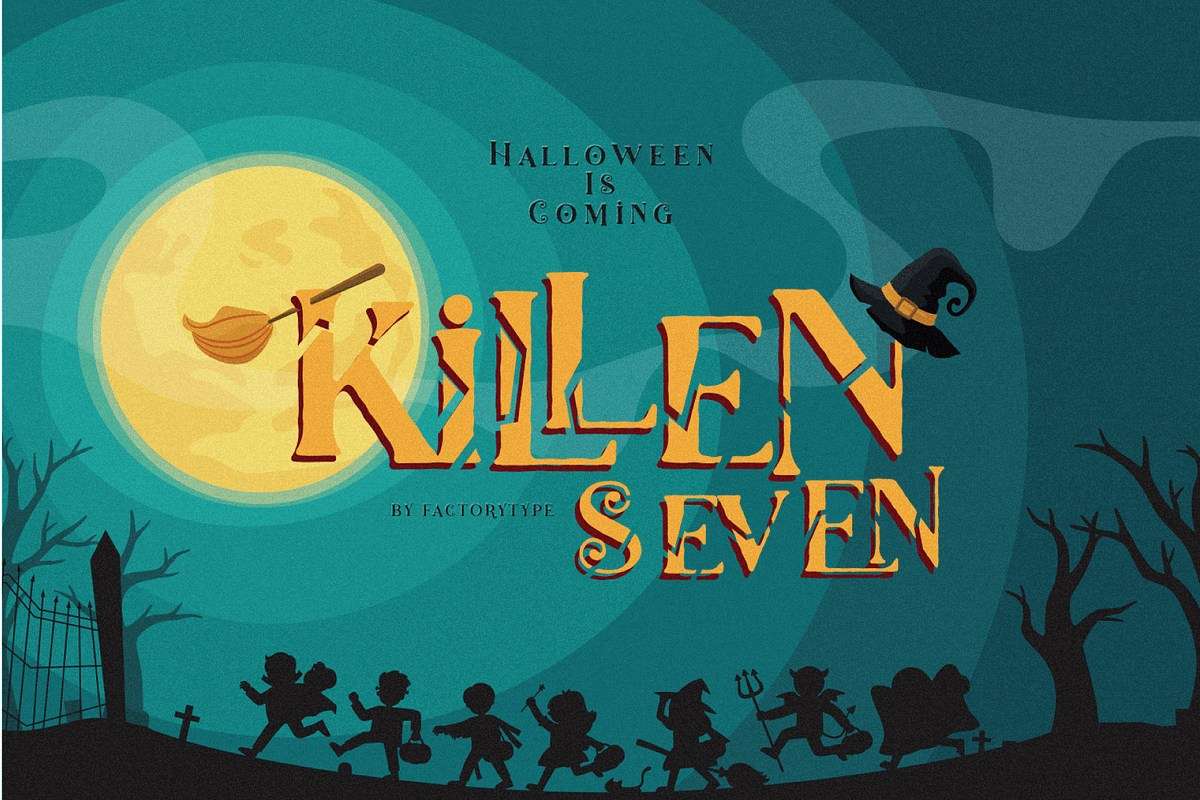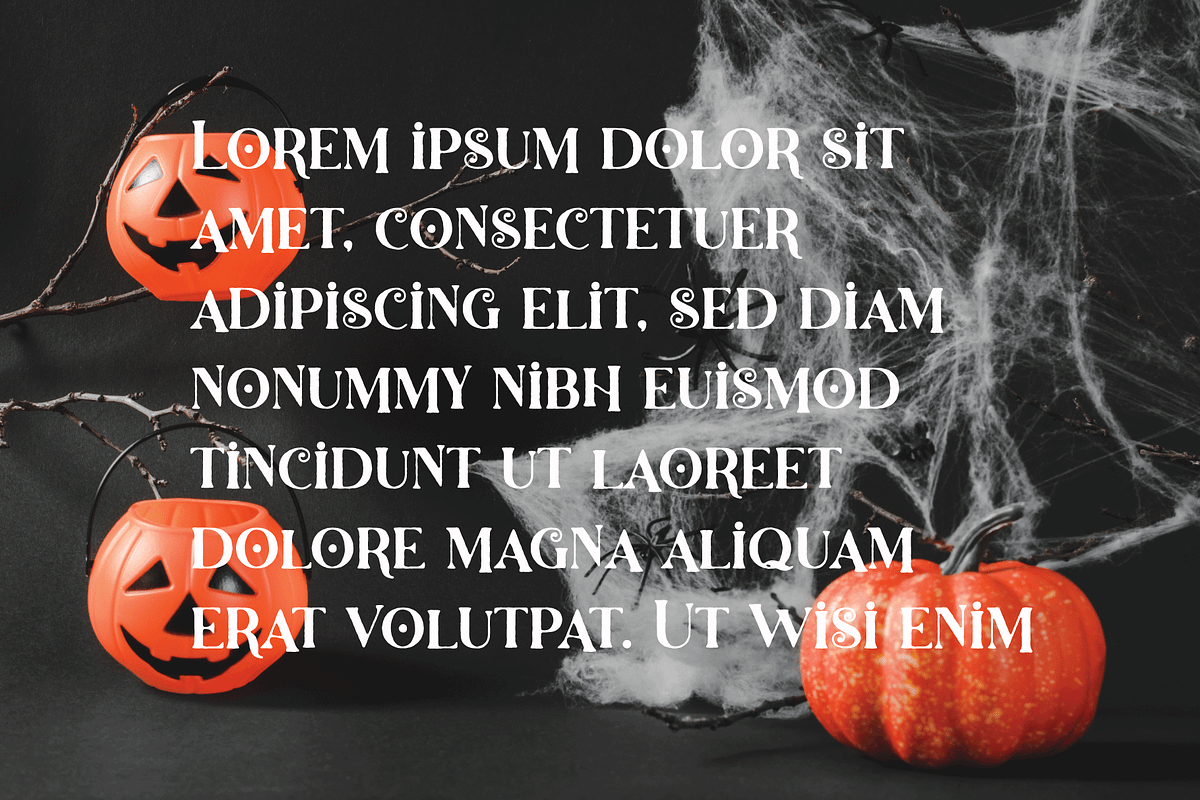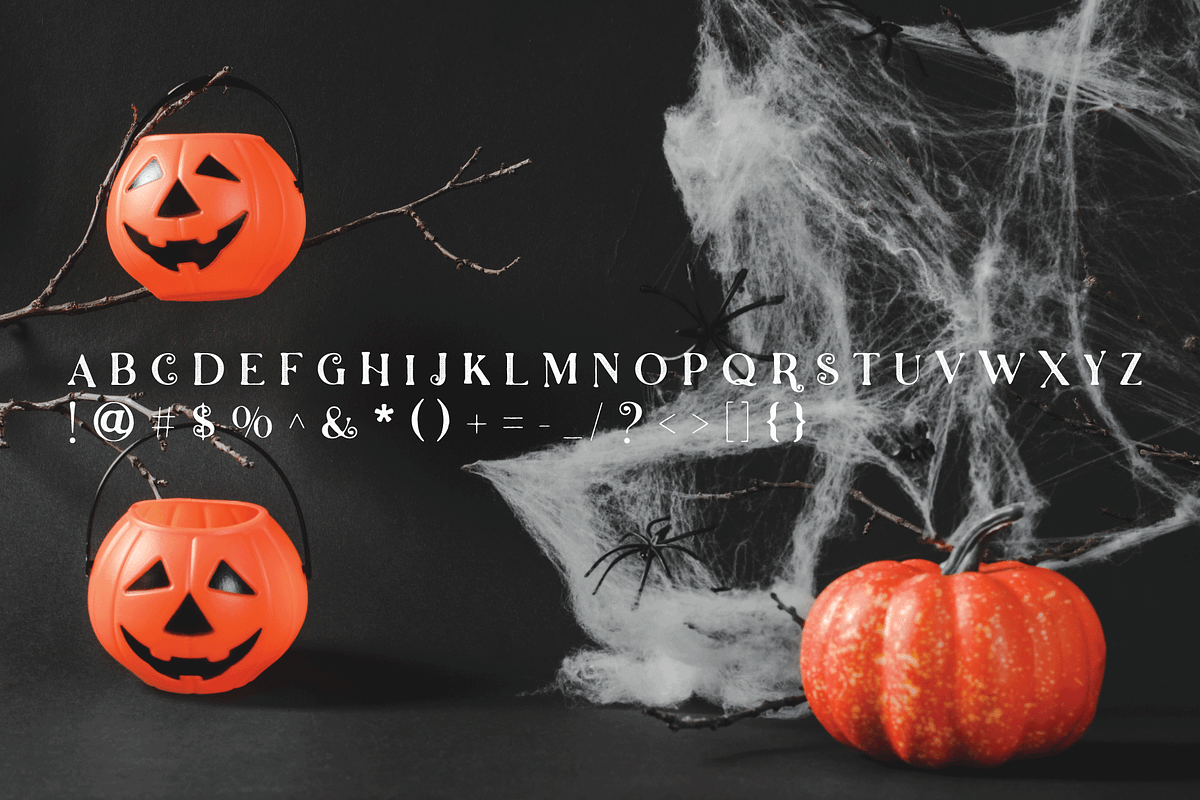
Killen Seven
Halloween is quickly approaching!!!
Killen Seven is an excellent choice for any Halloween project. Get inspired by its spooky atmosphere and use it to make any Horror project stand out. It has separate lower and uppercase letters, as well as numbers, punctuation, and multilingual letters. The Ligatures will come in handy for whatever your imagination can come up with!
7 Styles
Basic Latin A-Z and a-z
Stylistic Ligatures
Multilingual Support for ä ö ü Ä Ö Ü ...